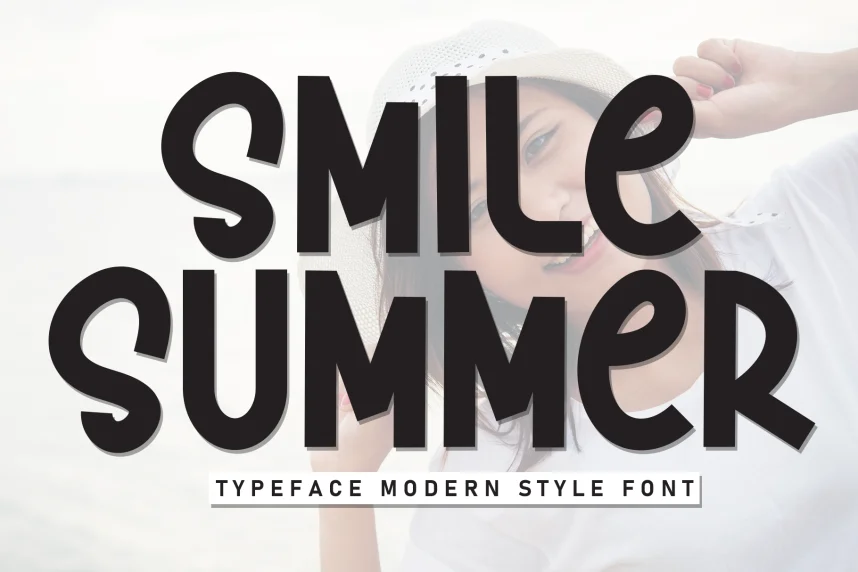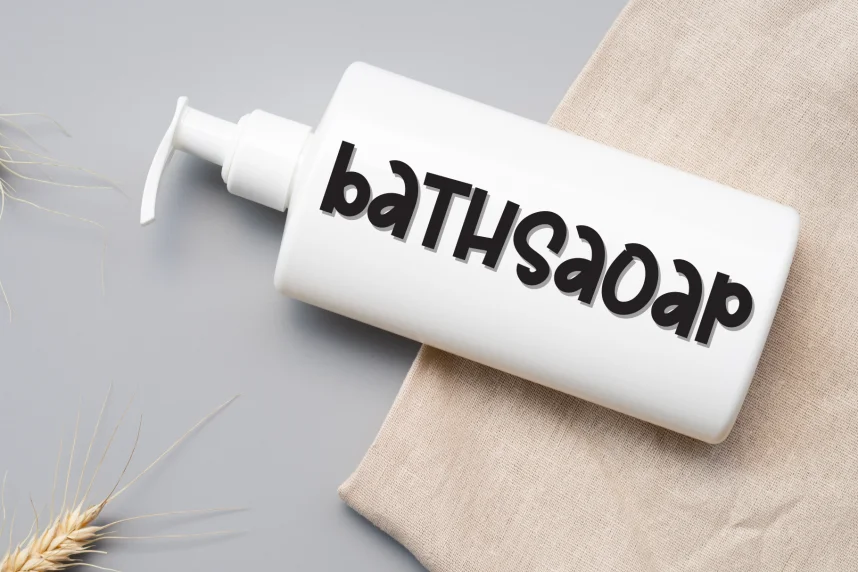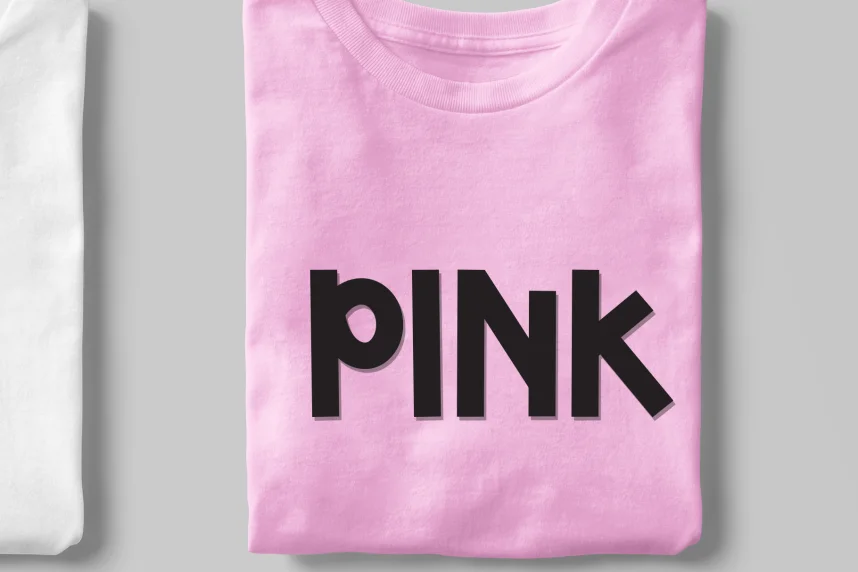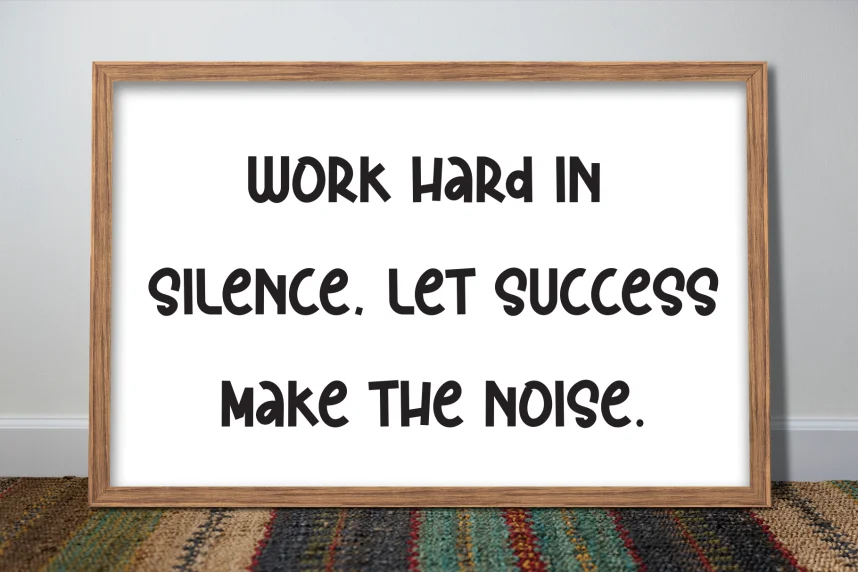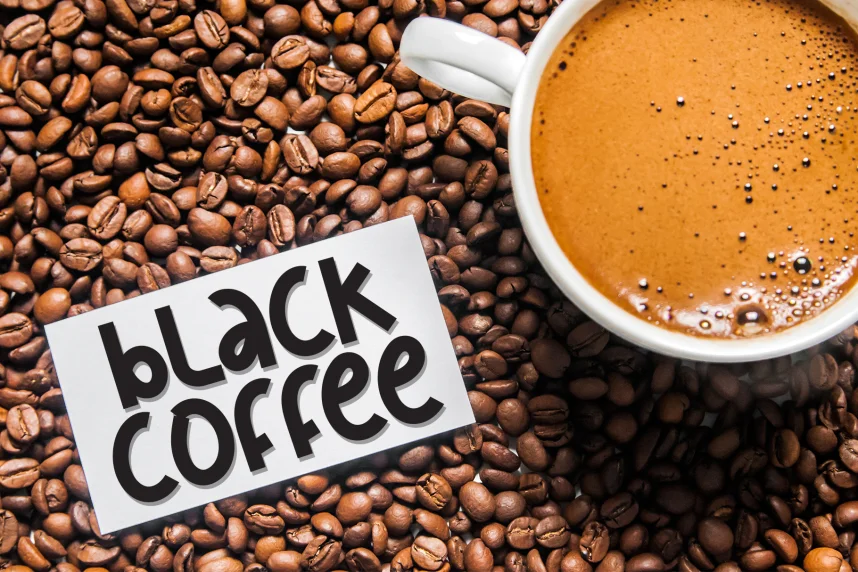
Smile Summer Modern Style Font solves the problem of creating a playful and fresh design without losing legibility. Designers often look for fonts that feel lighthearted yet clear for casual branding and social media content.
Smile Summer is a modern sans-serif with soft curves, rounded edges, and smooth transitions between strokes. The letterforms have even stroke contrast, making the font feel both fun and easy to read.